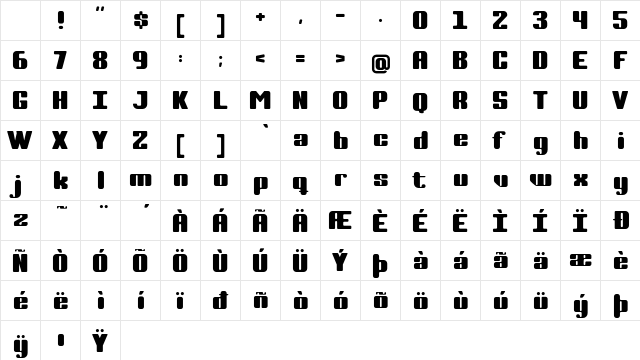
Complete Plain glyph index. Displaying only characters natively supported by Complete Plain font.
Complete is a composed and adaptable typeface that performs quietly and consistently across a wide range of design contexts.